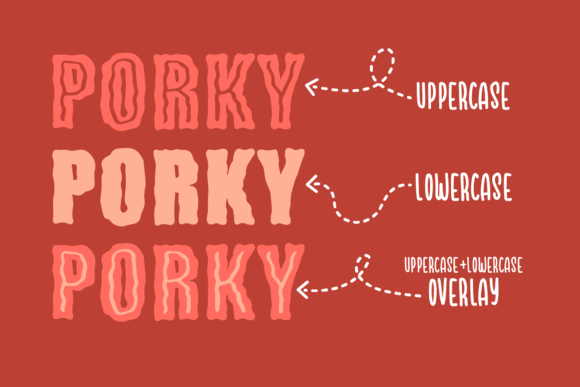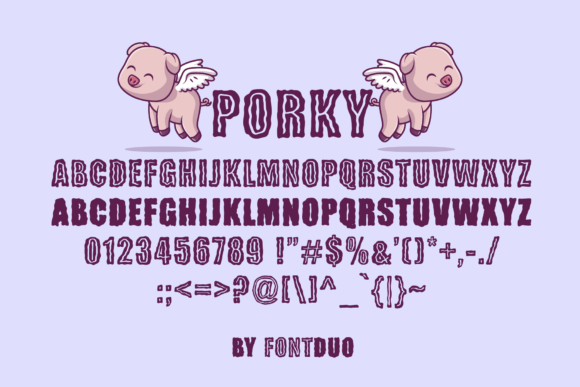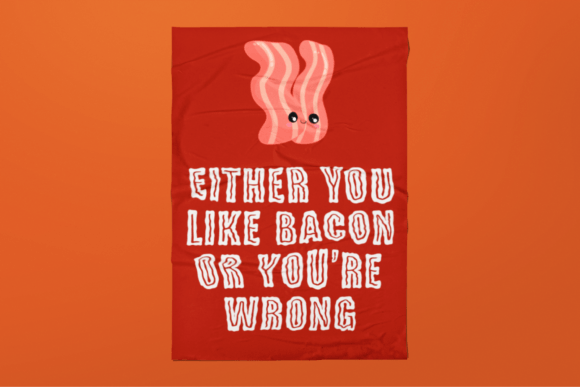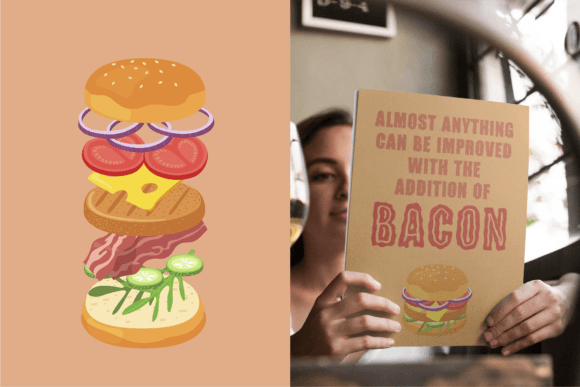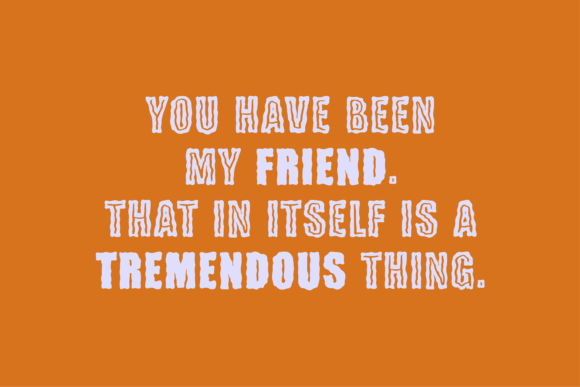
Introduction to Porky Font
Have you ever found yourself stuck in a creative rut, struggling to convey the perfect message or emotion in your design? We’ve all been there. It was on one of those days that I stumbled upon the delightful Porky Font, and everything changed. This adorable, handmade bacon-inspired layer font is more than just a pretty face – it’s a game-changer for designers.
Whether you’re working on a design project, crafting a social media graphic, or simply looking for a fun way to add some personality to your writing, Porky Font is an invaluable resource that’s sure to inspire your creativity and take your designs to the next level.
- Unique, handwritten design perfect for creative projects and personal expressions.
- Comes with a transparent background, allowing for seamless integration into various design applications.
- Includes 6 different font styles, each with its own distinct character and flair.
- Features high-quality, high-resolution design (300 DPI), suitable for print and digital applications.
- Perfect for adding a personal touch to invitations, greeting cards, and other creative projects.
Honest Review: Porky Font
I recently had the chance to work with the Porky Font, and I must say it’s been a pleasant experience. The font itself is quite unique, with a playful and fun vibe that’s perfect for creative projects.
What works well is the font’s versatility. It can be used for a wide range of designs, from headers to body text, and it looks great on both light and dark backgrounds. The transparent background option also makes it easy to use in various design scenarios.
- ✨ High-quality design: The Porky Font is well-crafted and looks great at various sizes and resolutions.
However, there are a few limitations to consider. The font’s playfulness can sometimes come across as childish, which may not be suitable for all design projects. Additionally, the font’s character set is limited, which may not be ideal for designers who need to work with a wide range of languages.
Overall, I’m impressed with the Porky Font. It’s a great addition to any designer’s toolkit, and it’s perfect for designers who want to add a bit of whimsy to their creative projects.
Tips for Getting the Most Out of Porky Font
Porky Font is a high-quality design resource that can add a touch of elegance to any creative project. To get the most out of it, use it with a transparent background to create a sense of depth and dimensionality. You can also combine it with other design elements, such as graphics and textures, to create a unique and eye-catching design.
Porky Font is a versatile design resource that can be used in a variety of creative projects, including branding, marketing materials, and digital art. It’s also a great choice for designers who want to create a sense of sophistication and elegance in their work.